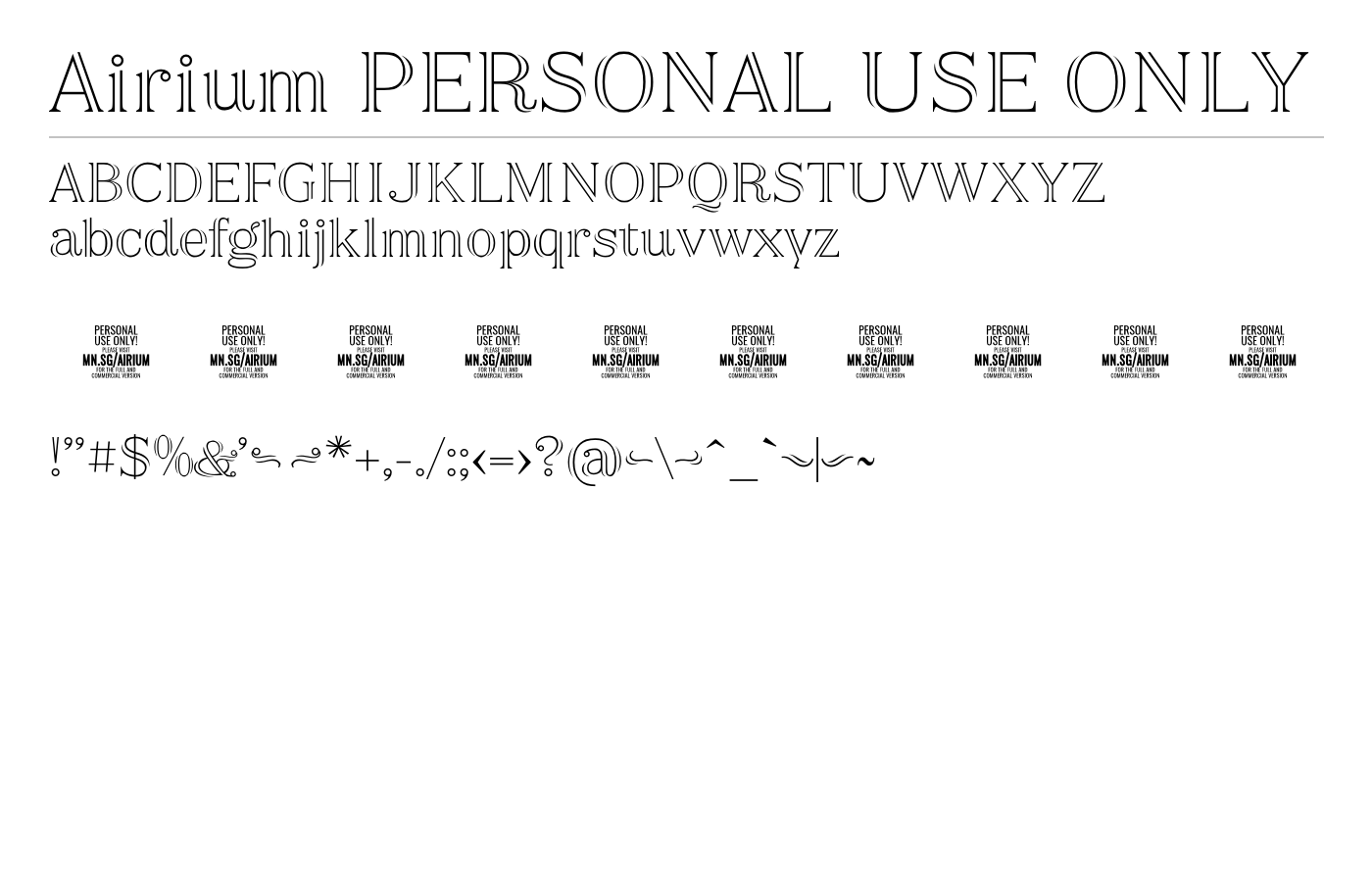
Airium is a delicate and elegant serif font that blends a modern, thin stroke style with classic letterforms to create a refined, airy appearance. Its high contrast lines and slender, bracketed serifs give it a sophisticated, vintage-inspired feel, making it ideal for luxury branding, editorial headlines, and stylish packaging. This font works beautifully where a graceful and timeless aesthetic is desired, lending a touch of understated elegance to any design.
Airium PERSONAL USE ONLY Font
About Airium PERSONAL USE ONLY Font